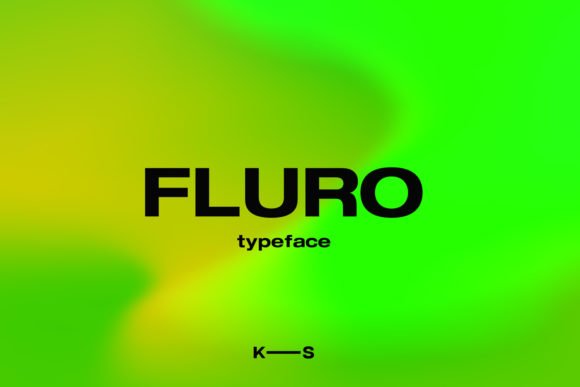
Unlocking the Power of Unique Typography
Have you ever been stuck in a creative rut, searching for that one font that brings your design to life? We’ve all been there. The frustration of scrolling through endless font options, only to end up with something bland and uninspiring. But what if I told you there’s a font that can change all that? A font that’s bold, cool, and guaranteed to make your designs stand out from the crowd.
Enter the Fluro Font, a sans serif powerhouse designed to give your typography a unique touch. Whether you’re crafting web designs, business cards, or any other visual masterpiece, Fluro Font is the perfect companion to bring your vision to life. As a designer, you know how valuable a distinctive font can be in making your work truly memorable. With Fluro Font, you’ll be able to create designs that truly pop and leave a lasting impression.
Key Features of Fluro Font
• Unique Characteristic: Fluro Font features a vibrant and energetic aesthetic, with each letter and symbol carefully crafted to evoke a sense of dynamism and movement.
Designer Review: Fluro Font
Overall, I’m quite impressed with the Fluro Font. Here’s a breakdown of what I like and what I don’t:
• The unique color palette is really eye-catching and makes the font stand out.
• The bold and playful feel of the font is perfect for titles, headings, and other emphasis.
• The font’s versatility makes it suitable for a wide range of designs, from modern to retro.
• The font may be too bold for some designs, making it difficult to read at smaller sizes.
• The font’s color palette can be overwhelming if used extensively, so it’s essential to use it sparingly.
• The font may not be suitable for body text, as it can be too attention-grabbing and distracting.
Overall, I think the Fluro Font is a great addition to any designer’s toolkit. While it may have some limitations, its unique qualities make it a great choice for titles, headings, and emphasis. Just be mindful of its bold nature and use it thoughtfully to avoid overwhelming your design.
Practical Application Guide for Fluro Font
Fluro Font is ideal for:
– Digital signage and display graphics
– Social media graphics and ads
– Infographics and data visualizations
– Marketing materials and promotional items
Tips for Getting the Most Out of Fluro Font
– Experiment with different font sizes and colors to create visual interest
– Use Fluro Font in combination with other bold and eye-catching fonts for maximum impact
– Consider using Fluro Font in all caps for added emphasis and energy
Alternatives to Fluro Font
Montserrat is a sans-serif font designed by Julieta Ulanovsky. It is a clean and modern font, perfect for digital products and websites. Montserrat is a great alternative to Fluro Font for designers who want a more subtle and professional look. Montserrat is more versatile and can be used in a variety of contexts, from body text to headings.
Comparison to Fluro Font: Montserrat is more subdued and doesn’t have the same level of neon-like glow as Fluro Font. However, Montserrat has a more sophisticated and modern feel that can be used in a wider range of designs.
Great Vibes is a script font designed by Pablo Parra. It is a playful and elegant font, perfect for creating a sense of sophistication and luxury. Great Vibes is a great alternative to Fluro Font for designers who want to add a touch of elegance to their designs. Great Vibes is more suitable for headings and titles, rather than body text.